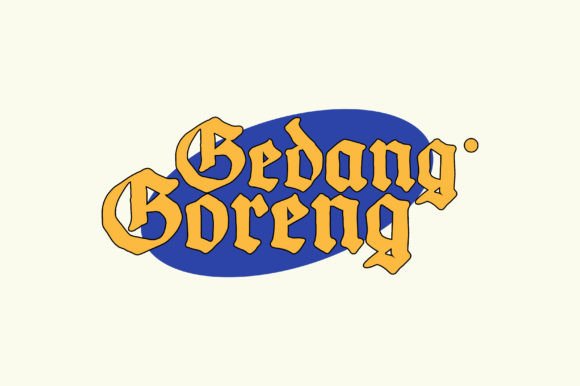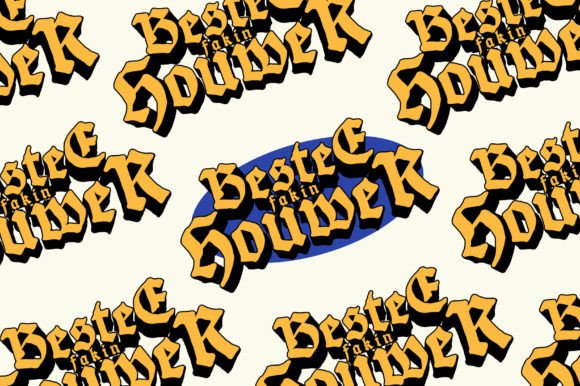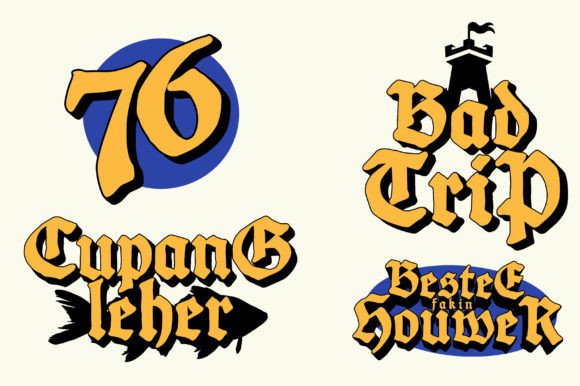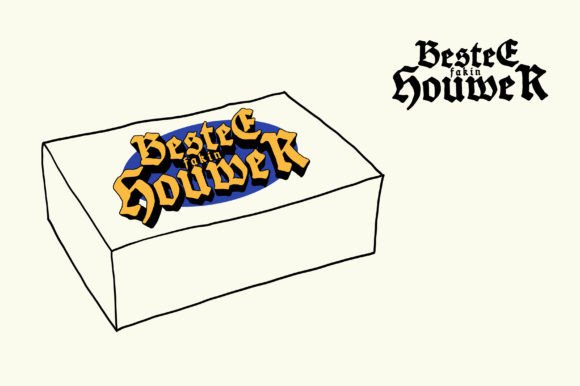
Gedang Goreng Font
About the Gedang Goreng Font
Make a bold statement with Gedang Goreng Font, a powerful and memorable font. Gedang Goreng is a black letter font with a nice heavy metal touch. This font is ideal for any design that requires a firm touch. Add it confidently to your projects, and you will love the results.
Its strong, almost aggressive strokes make Gedang Goreng perfect for headlines, logos requiring a bold statement, and short impactful phrases in posters or branding materials. Avoid using it for body text or lengthy passages; its weight and density would quickly become fatiguing to read. Consider using it sparingly as an accent for maximum impact.
The font’s personality is undeniably bold and assertive, suggesting power and a touch of rebellion. This makes it a great choice for projects related to heavy metal music, motorcycle clubs, or brands aiming for a tough, masculine image.
Pairing Gedang Goreng with a clean sans-serif like Montserrat for body text creates a balanced contrast. For a more refined look, consider pairing it with a classic serif like Garamond for supporting text, softening its harshness while maintaining visual interest.